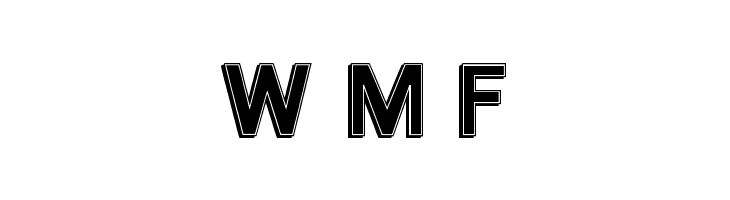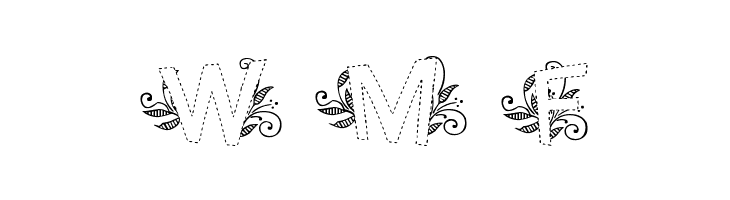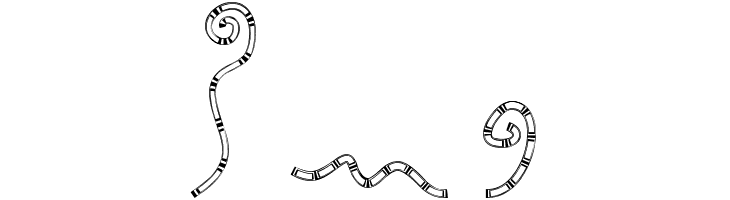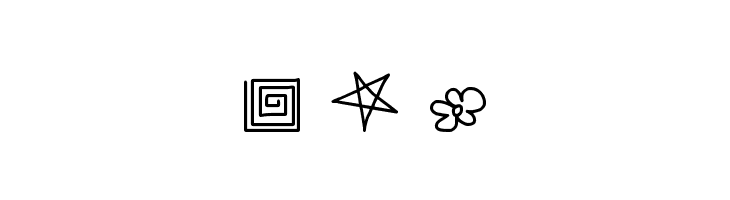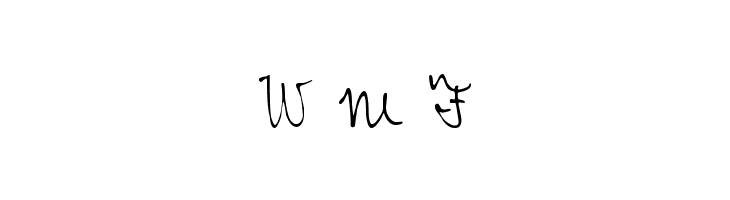
MTF Chubb Font
A bold, rounded font with a playful and friendly appearance.
MTF Base Font
A bold, modern sans-serif font with clean lines and balanced proportions.
MTF Heart Doodle Font
Hand-drawn decorative font with whimsical heart doodles.
MTF Base Outline Font
A bold, outlined font with a modern and structured appearance.
MTF Jumpin' Jack Font
A playful, bold font with a whimsical and dynamic style.
MTF Cupcake Font
A playful, handwritten font with smooth, flowing lines and a whimsical style.
MTF Skinny Jeans Font
A tall, narrow font with elongated, thin characters for a sleek, modern look.
MTF Doodle Font
A playful collection of hand-drawn doodle symbols with a whimsical style.
MTF Jude Font
A casual, friendly handwritten font with smooth, flowing strokes.
MTF Epic Font
A playful, hand-drawn font with a bold, sketch-like appearance.
MTF Chunkie Font
A playful, heart-themed decorative font with a hand-drawn feel.
MTF Under Your Skin Font
An ornate and decorative font with intricate swirls and flourishes.
MTF Sweet Nature Dings Font
A whimsical dingbat font with nature-themed illustrations.
MTF Cool Kid Font
MTF Scribblie Font
A playful, hand-drawn font with intricate patterns and doodles.
MTF Sweet Cheeks Font
A playful and whimsical font with bold, rounded characters and a fun, informal style.
MTF Base Leafy Font
An ornate, decorative font with intricate leaf embellishments.
MTF Wulan Font
MTF Dear Santa Font